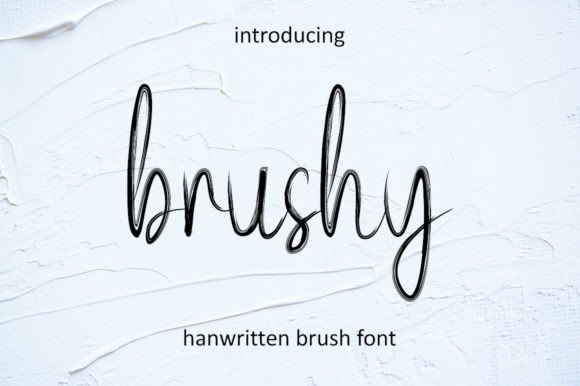
Welcome to the realm of visual charisma, where Brushy Font reigns supreme, a script font family that's not just a collection of letters, but an artistic gateway to expression and creativity. Immerse yourself in the world of Brushy, where each stroke, every curve, and every twist dances with elegance and vintage charm.
Brushy isn't just a font; it's a versatile chameleon, adapting seamlessly to any branding project, from the bold strokes of logos to the expressive flair of t-shirt designs. Its adaptability extends to creative products, where it breathes life into words, transforming them into captivating visuals.
With Brushy, you'll discover a font that transcends mere legibility. It's a conduit for emotions, a brushstroke that paints your vision onto the canvas of your designs. Its vintage flair adds a touch of nostalgia, evoking memories of simpler times and timeless beauty.
Picture your designs adorned with Brushy's graceful curves, each letter a testament to your discerning taste and creative prowess. Your logos will command attention, your t-shirt designs will tell stories, and your creative products will radiate an aura of distinction.
But Brushy's magic extends beyond branding projects. Its versatility shines in a myriad of contexts. Envision your social media posts, infused with Brushy's charm, captivating your audience with visually stunning quotes and captivating announcements.
Unleash your imagination and let Brushy guide you through a typographic journey like no other. Its strokes possess a magical ability to transform ordinary words into captivating visuals, making your designs stand out from the crowd.
Join the creative revolution and embrace Brushy Font, the ultimate expression of elegance, vintage charm, and boundless creativity. Let your designs flourish with a touch of Brushy's magic.